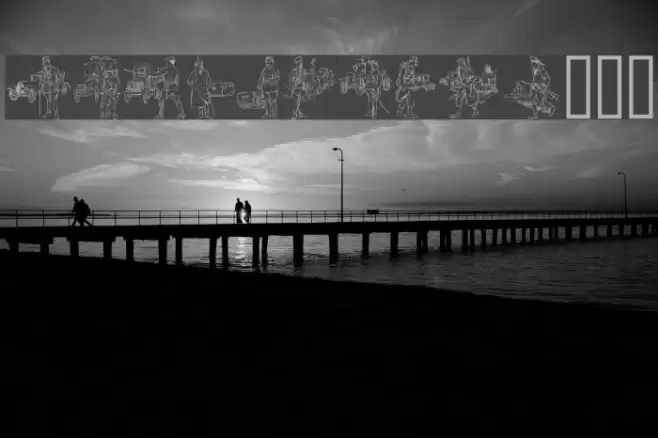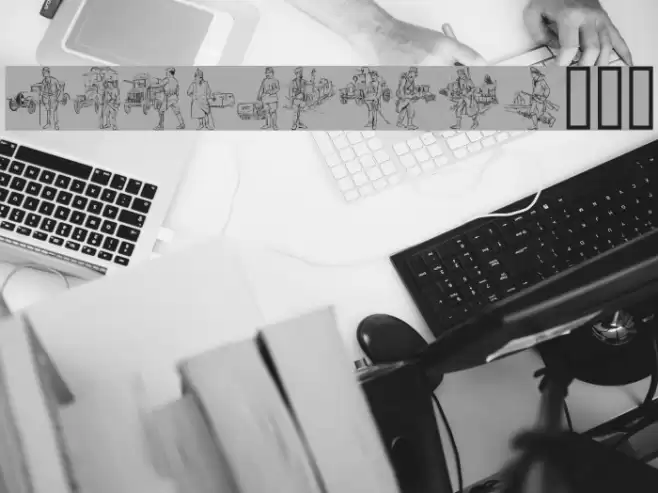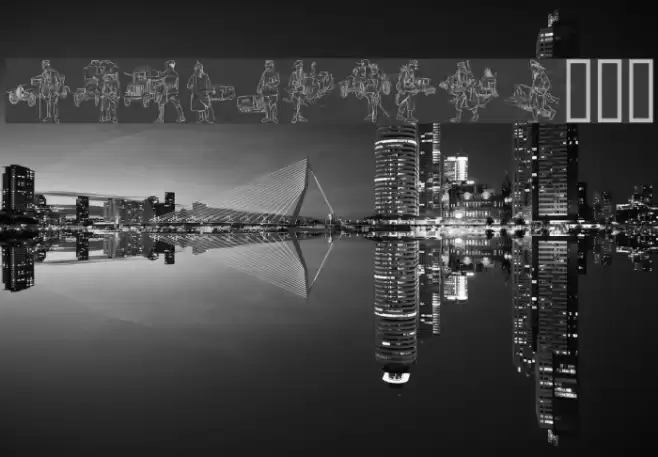
WW1 C Font
WW1 C Description
A decorative font composed of detailed illustrations of World War I soldiers in various poses, each character represented by a unique figure or scene, giving the typeface a hand-drawn, historical appearance.
Hand-drawn WWI soldier illustrations form each character from Dingbats fonts.
- Proposed Projects: Historical posters, educational materials, themed event invitations, museum displays.
- Overall Style: Vintage, Illustrative, Decorative
- Use Case: Headlines, Posters, Themed graphics